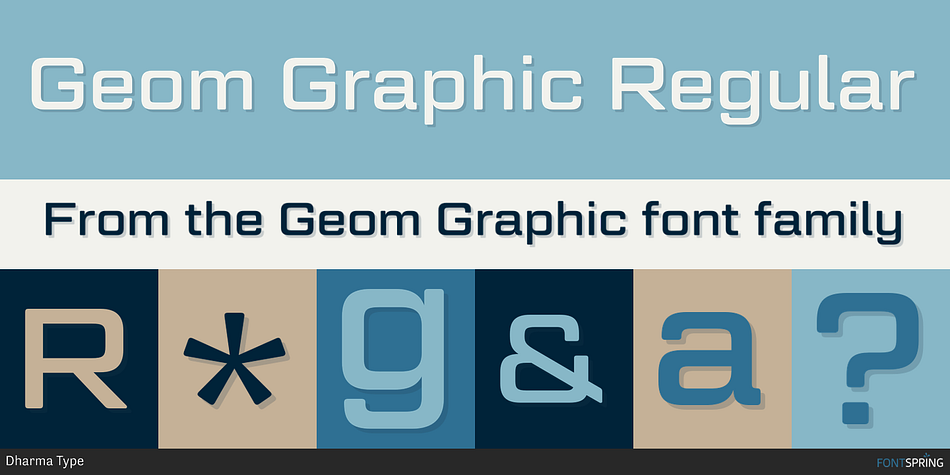
Geom Graphic Regular
Geom Graphic is a sans serif font family. This typeface has eight styles and was published by Dharma Type.
Inspired by Japanese robot animations in 80s such like Gundam and Ideon.
Geom Graphic is a square geometric sans-serif inspired by 1980s Japanese robot animations such as Gundam and Ideon.
While it shares a similar visual feel with Eurostile, Geom Graphic is more squared and geometric, with subtle rounding that gives it a natural, warm, and retro character.
The family includes 4 weights with matching italics, making it versatile for a wide range of design needs.
With extensive language support, Geom Graphic is ideal for futuristic-themed projects including games, movies, logos, and beyond.